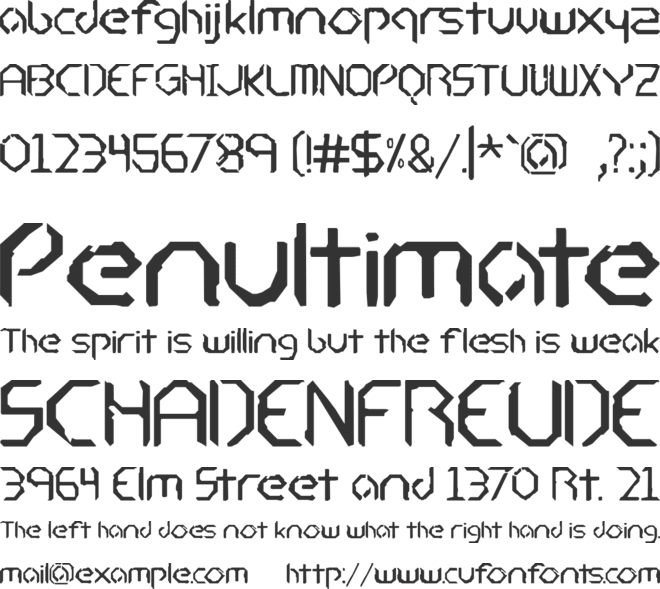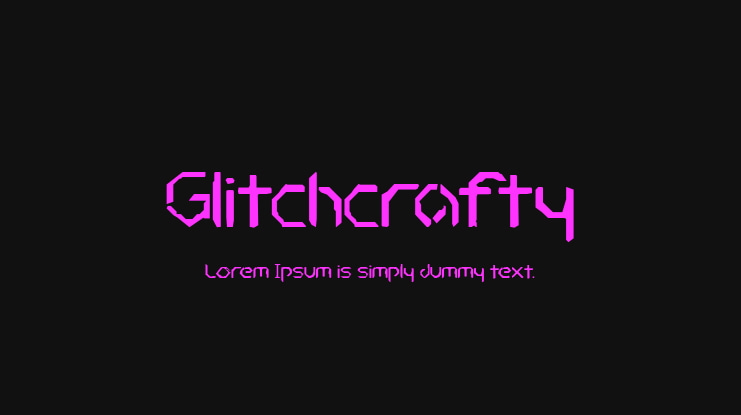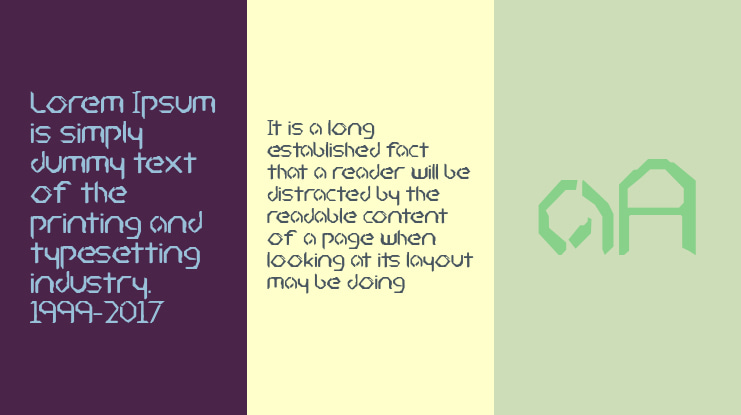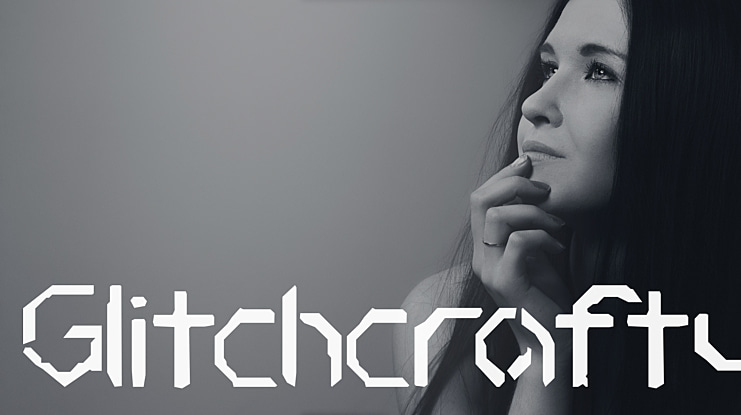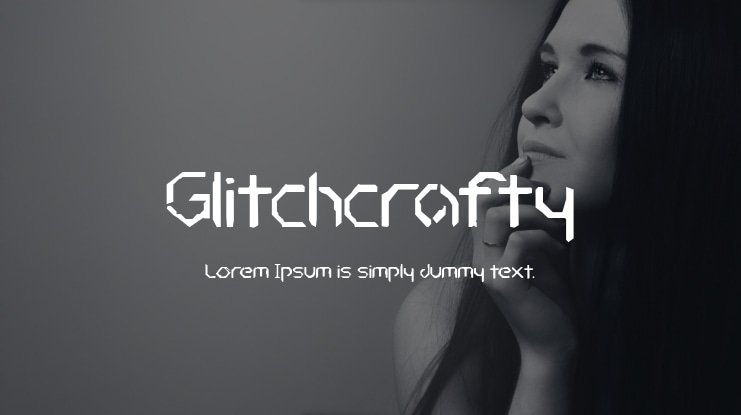
Glitchcrafty Font
The file transfer didn't come through clean and the error correction routines are borked. You're just going to have live with this.
Glitchcrafty Regular
Designed by Michael W. Moss